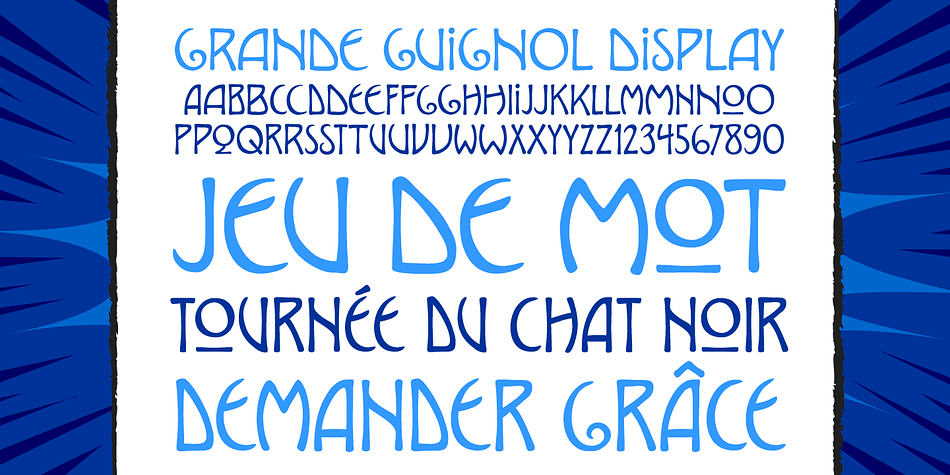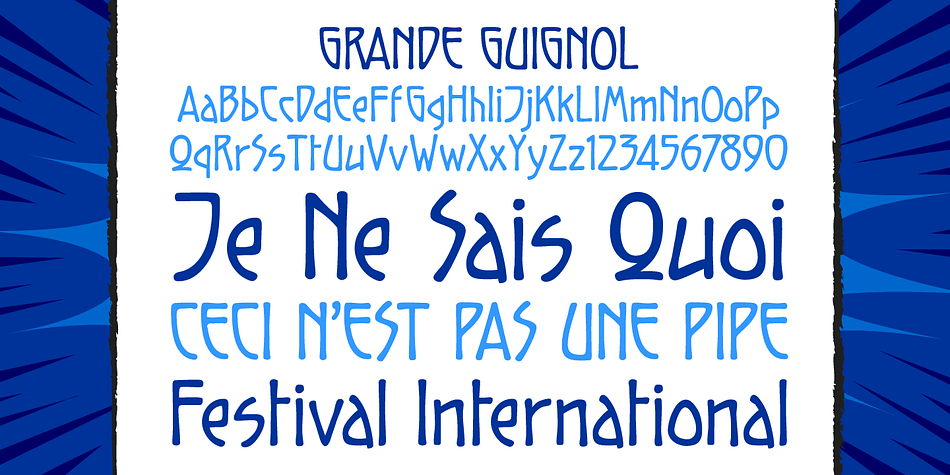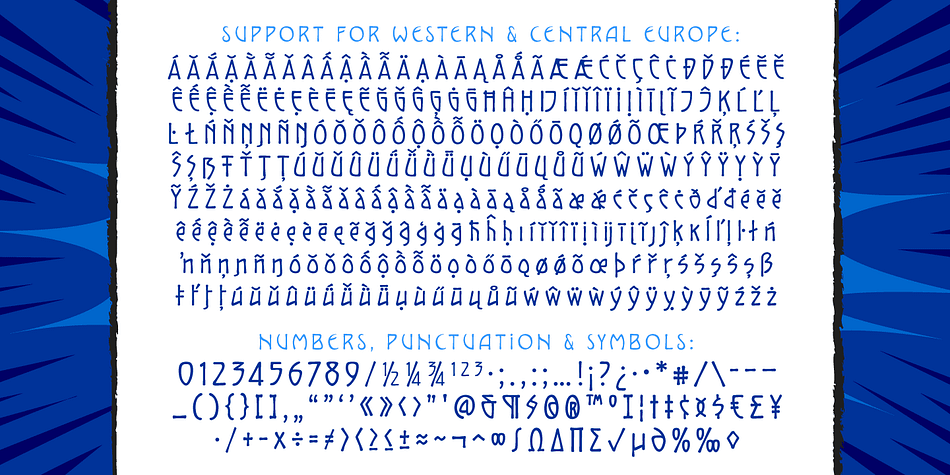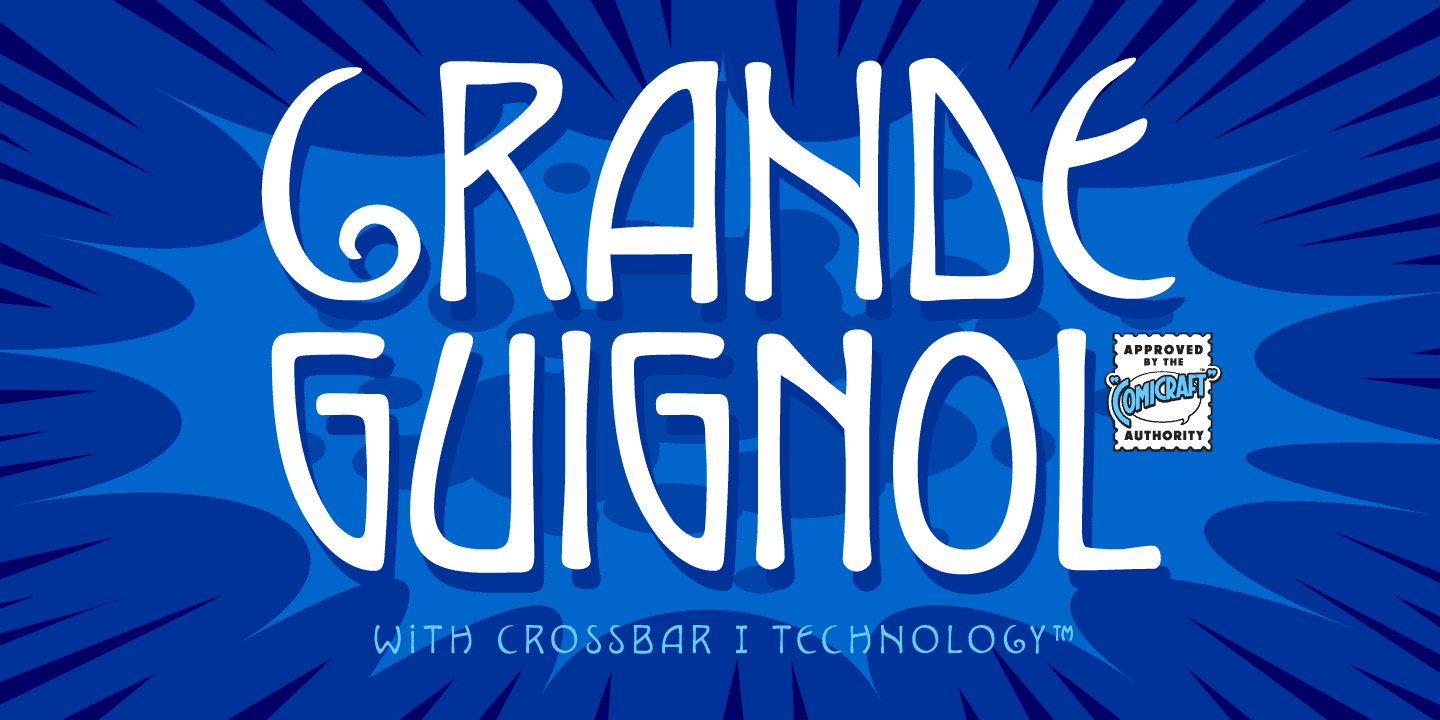
Grande Guignol
Designed by John Roshell, Grande Guignol is an art nouveau font family. This typeface has two styles and was published by Comicraft.
A gruesome operatic drama is about to unfold, a tragic performance of the macabre! We offer for your entertainment a series of unfortunate events full of shocks and lugubrious revelations which will chill you to the bone! We also offer you this font, which may have similar effects, including nausea, migraine, heart palpitations and stomach upset. Pretty, though, isn’t it?
Art Deco & Art Nouveau posters, this font pair defined the look of John’s MARVEL’S FINEST book designs in the early 2000s, and Richard’s comic ASK FOR MERCY in the 2020s!